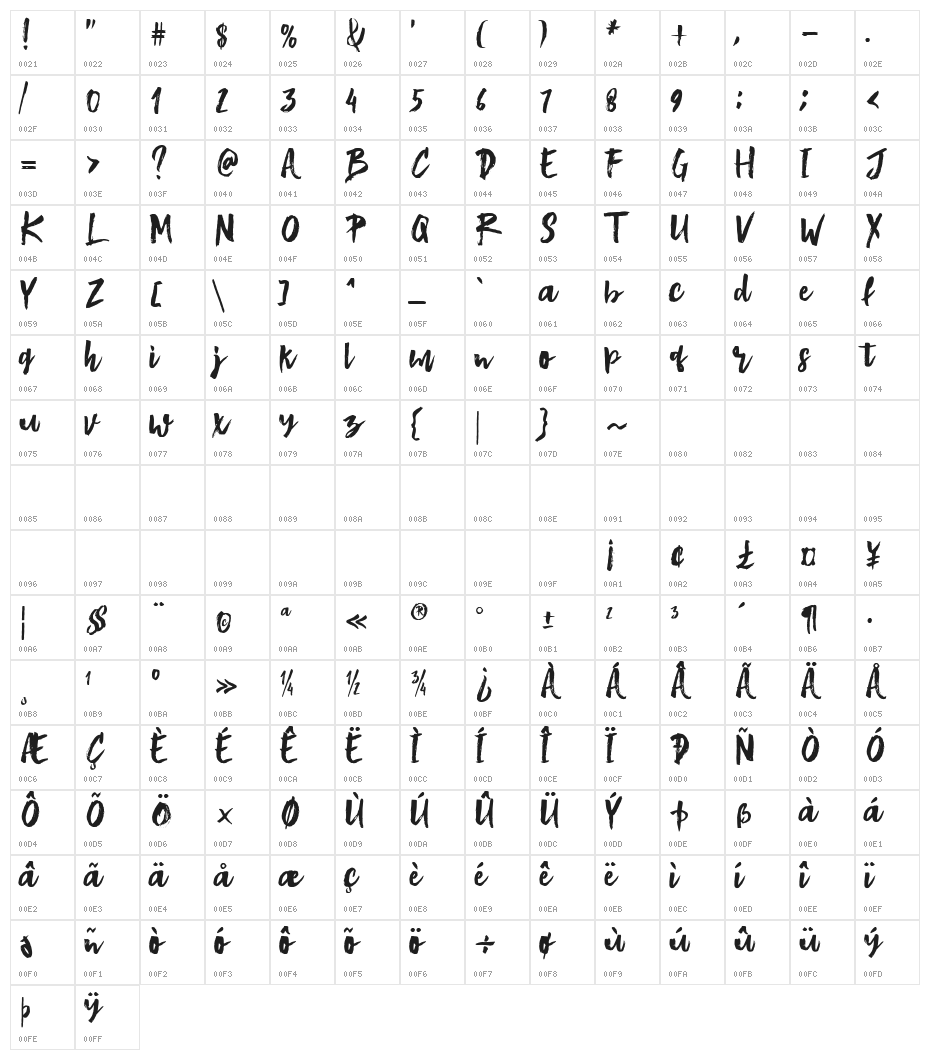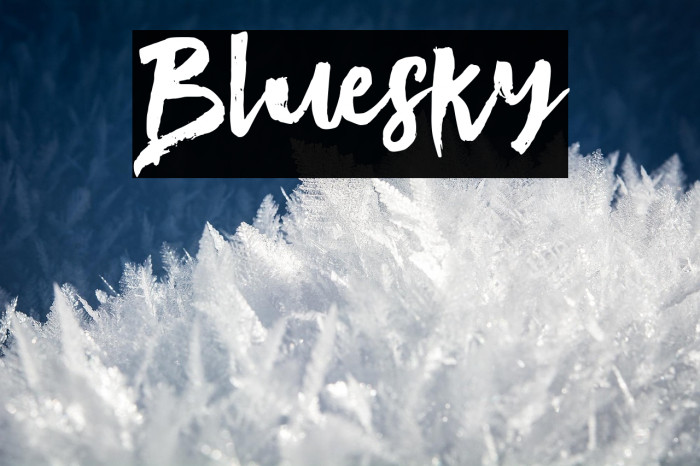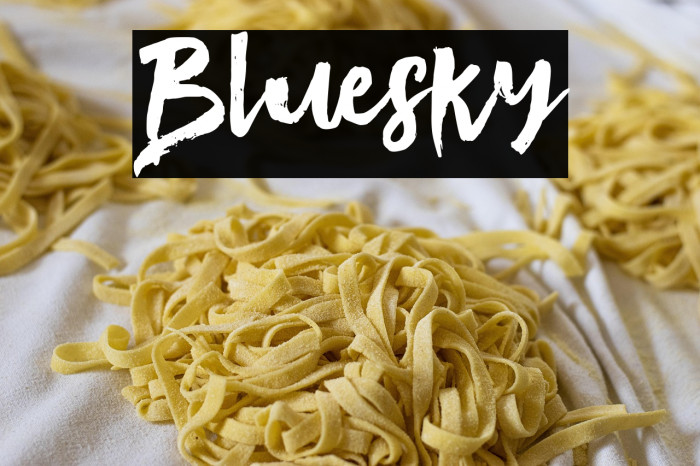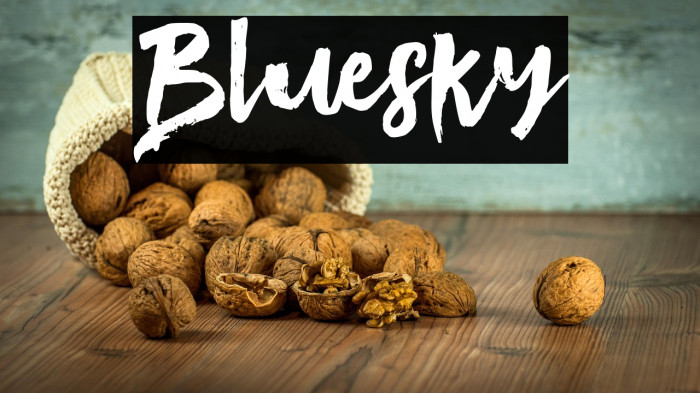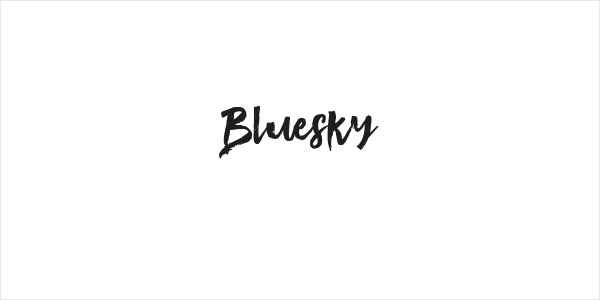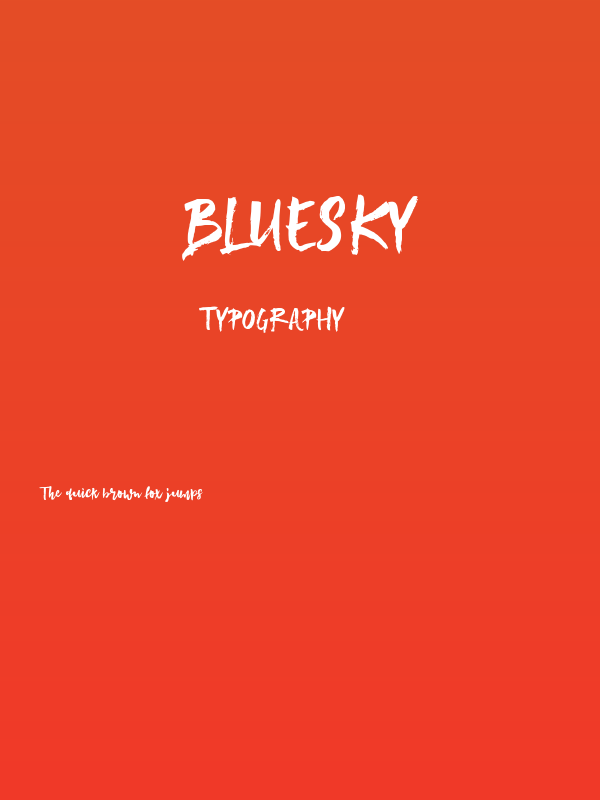
Bluesky Font
Bluesky Description
This font exudes a bold, expressive style with its brush-like strokes and dynamic flow. The uppercase and lowercase letters are crafted with a sense of movement, giving an impression of spontaneity and artistic flair. The numbers and special characters maintain this energetic aesthetic, making them stand out with their thick, textured lines. The overall appearance is both modern and artistic, suitable for projects that require a personal touch or a creative edge. The font's design is reminiscent of hand-painted signage, offering a unique blend of readability and artistic expression.
| Overall Style | Modern, Artistic |
| Use Case | Logos, Posters, Artistic projects |
| Proposed Projects | Ideal for branding, posters, artistic projects, and any design needing a personal, creative touch. |